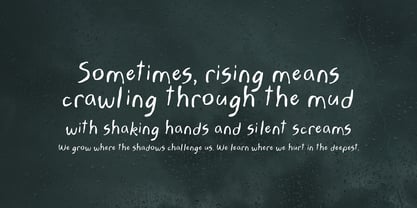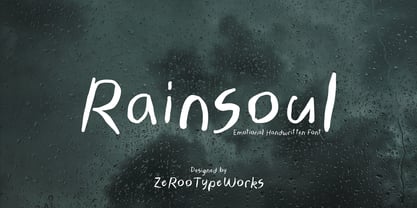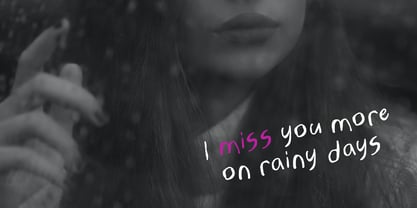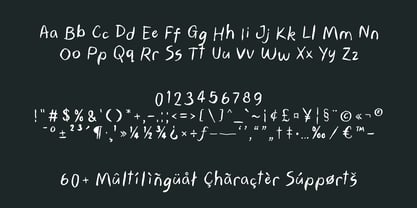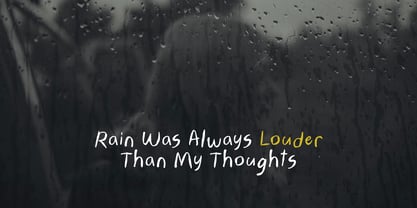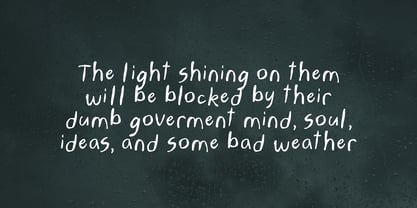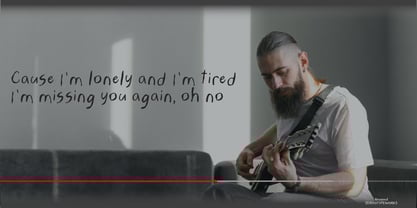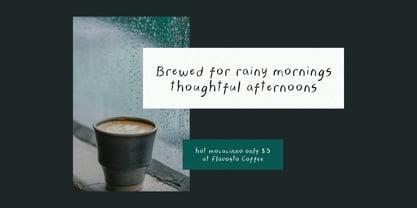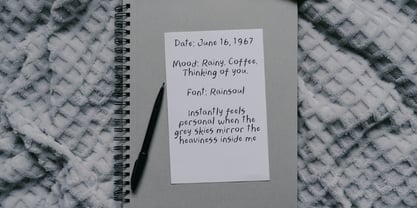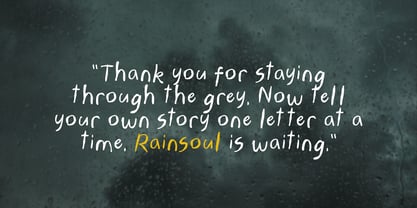
ZRTW Rainsoul
by Zerootypeworks
The ZRTW Rainsoul Font Family was designed by Gumilang Anggara Ruslan and published by Zerootypeworks. ZRTW Rainsoul contains 1 styles. More about this family
Rainsoul is an emotional handwritten font with soft curves and a natural writing rhythm. Its slightly uneven structure gives it an authentic, intimate look like notes scribbled on a rainy afternoon. Ideal for poetry, minimalist branding, emotional storytelling, or music-related visuals, Rainsoul adds depth and human warmth to your design. With soft curves and a natural writing rhythm. Its slightly uneven structure gives it an authentic, intimate look like notes scribbled on a rainy afternoon. Ideal for poetry, minimalist branding, emotional storytelling, or music-related visuals, Rainsoul adds depth and human warmth to your design.
Rainsoul is a handwritten font that captures the quiet intensity of a rainy day. With natural letter shapes and soft irregularities, it feels like a diary entry written in solitude — perfect for designs that crave honesty and emotion.
Its raw yet elegant form is perfect for:
• Poetic quotes
• Book covers
• Music-related visuals
• Journaling templates
• Emotional branding
This font brings out the human side of typography — organic, personal, and deeply expressive.
Need a font that speaks softly but hits deep? Rainsoul delivers emotion in every stroke, bringing introspective warmth to your visuals — ideal for artists, writers, and storytellers.
Key Features
🌧 Natural Handwritten Feel
• Imperfect yet balanced letterforms bring authenticity to your design.
🌧 Soft & Expressive Rhythm
• Slight tilt and flow evoke a sense of reflection and depth.
🌧 Rainy, Poetic Aesthetic
• Ideal for emotional content, love letters, rainy-day branding, and more.
🌧 Perfect for Personal Branding
• Use it in music promotions, minimalist designs, zines, or YouTube intros that aim to feel heartfelt and personal.
Designers: Gumilang Anggara Ruslan
Foundry: Zerootypeworks